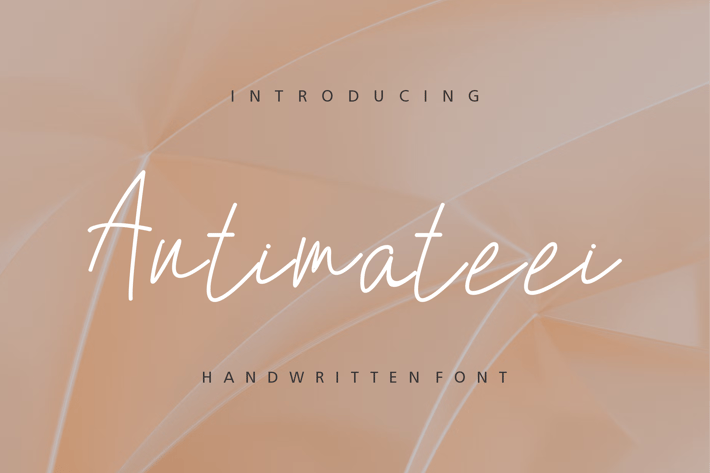
Antimateei Font Handwritten.
Introducing our new product the name is Antimateei Font Handwritten. Modern Decorative Fonts that feels beautiful classy, elegant, and modern. This font is perfectly suited for a wide variety of projects, such as signature, stationery, logo, wedding, typography quotes, magazine or book cover, website header, branding, packaging design, and more. Also, fashion-related branding or editorial design displays both masculine and feminine qualities.